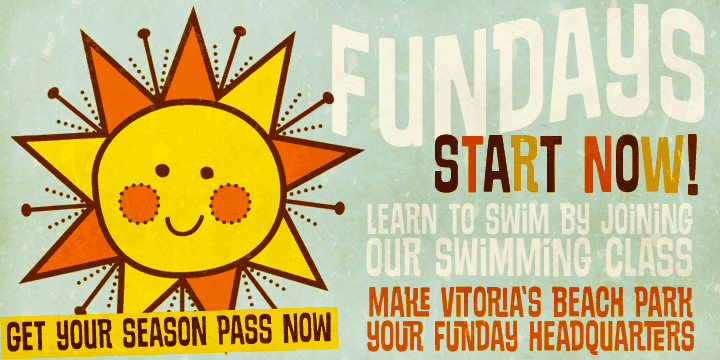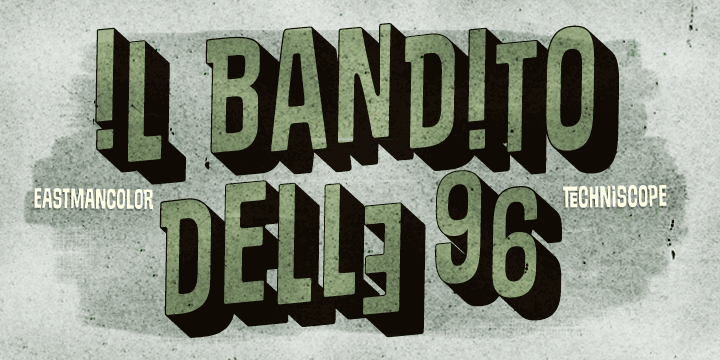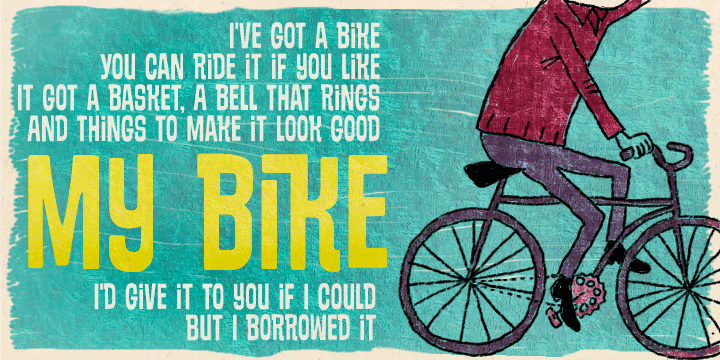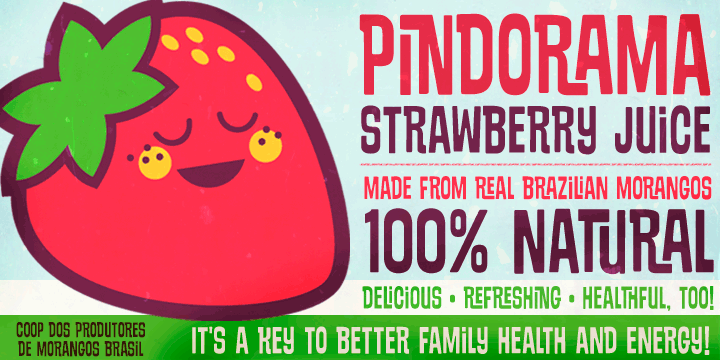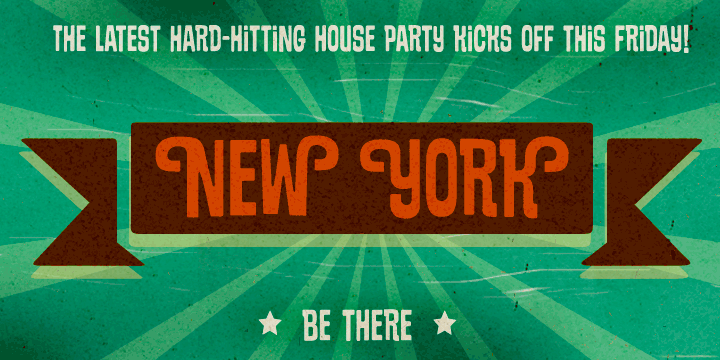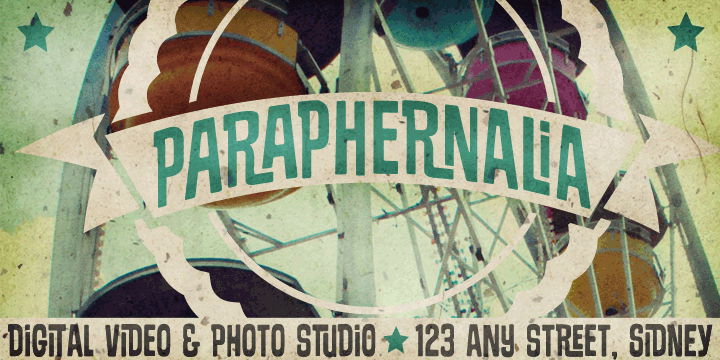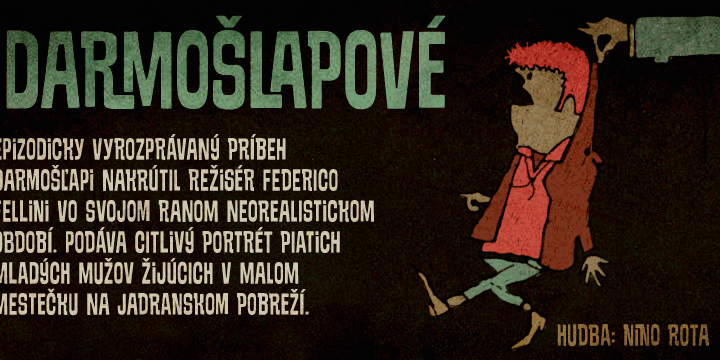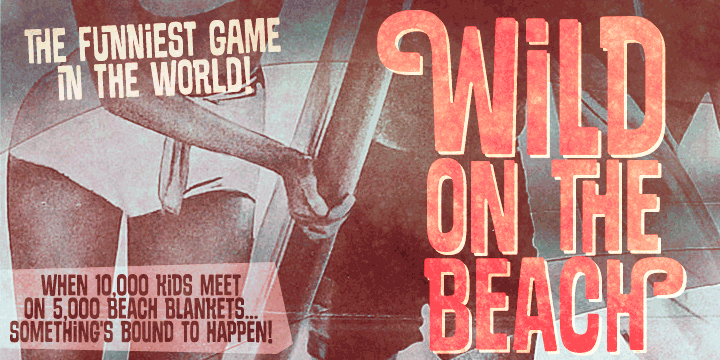
Sundowners is a display font published by PintassilgoPrints.
Sundowners is a smiley face. It is a versatile font, with a pocketful of cool interlocking glyphs for those days of groovier moods. It also brings a handful of amusing initial and terminal forms and a couple of ornaments. That simple. And that nice.